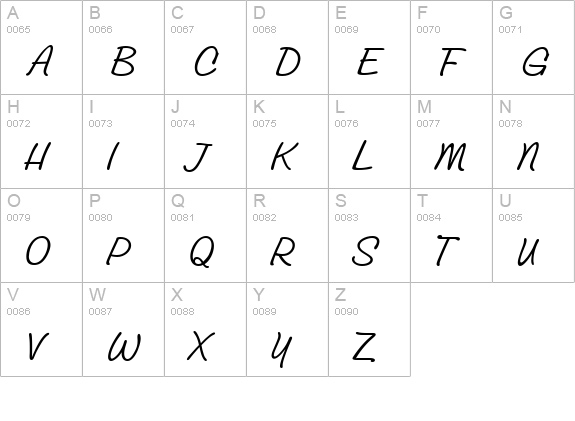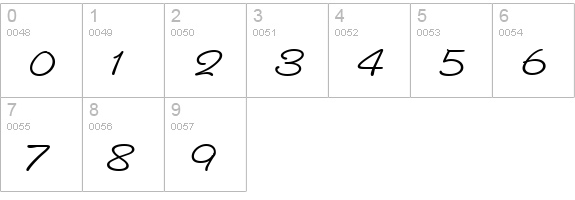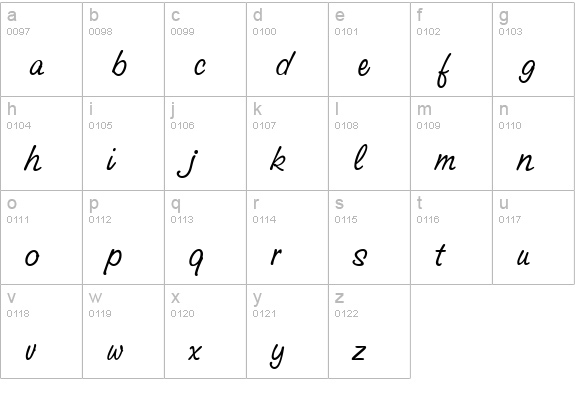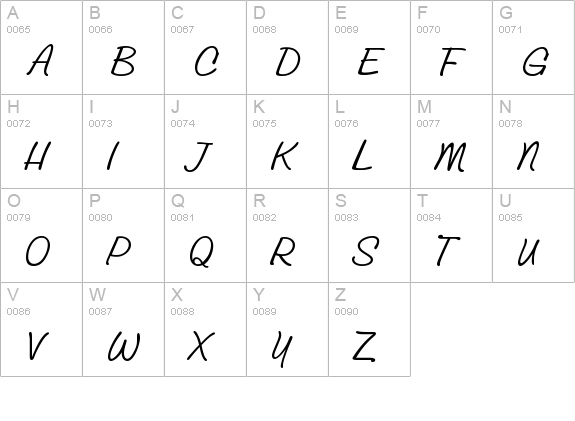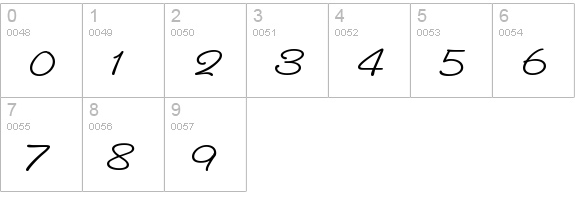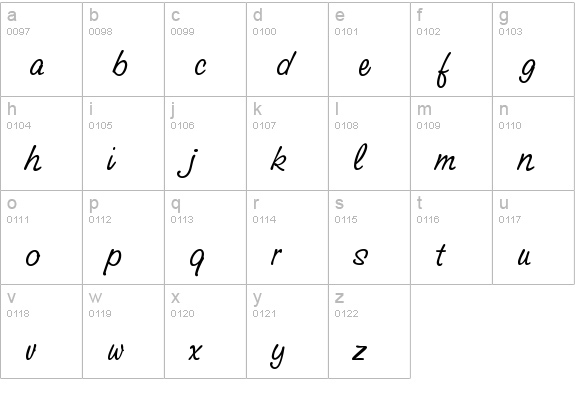
GroveScriptLight Font Details
Introducing GroveScriptLight font, a beautifully crafted typeface that exudes elegance and sophistication. With its sleek and modern design, GroveScriptLight is perfect for a wide range of projects, from branding to editorial design. What sets GroveScriptLight apart is not only its stunning aesthetics but also the fact that it is completely free to download. Yes, you read that right - this premium font can be yours at no cost! Simply head over to FontsMarket.com to get your hands on this exquisite typeface and elevate your designs to the next level. Whether you're working on a professional project or a personal one, GroveScriptLight is sure to make a lasting impression. Its clean lines and versatile style make it a go-to choice for designers looking to add a touch of sophistication to their work. Don't miss out on this incredible opportunity to enhance your design toolkit with GroveScriptLight font. Download it for free today and let your creativity shine!